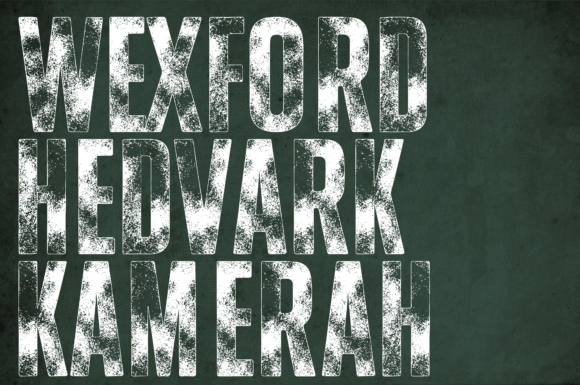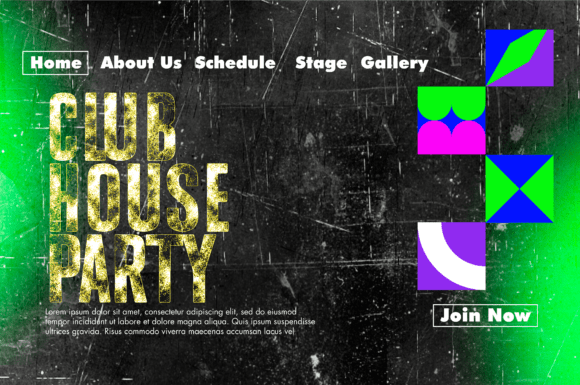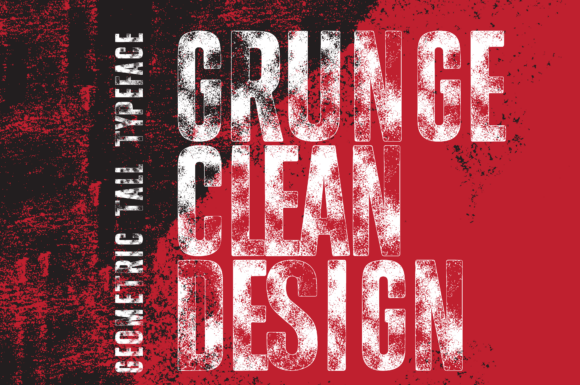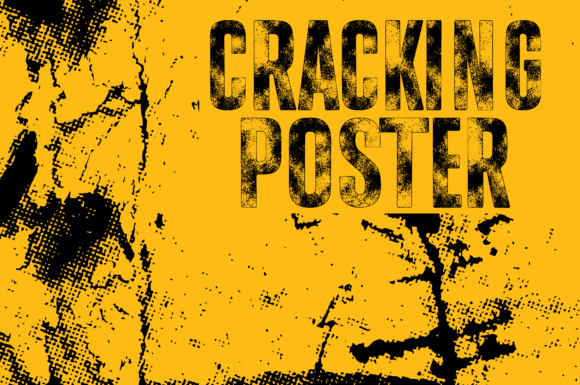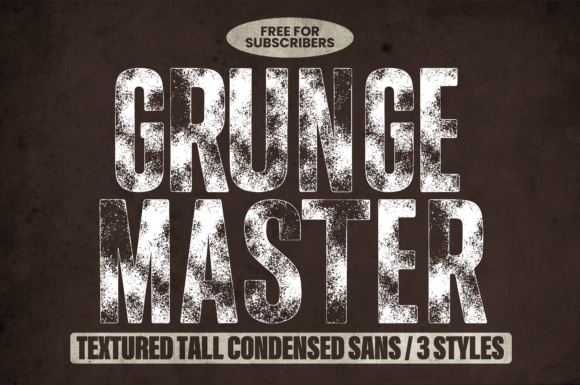
Unveiling Grunge Master: The Ultimate Font for Edgy Designs
Are you tired of using the same old fonts in your designs? Do you want to add a touch of rebellion and boldness to your projects? Look no further than Grunge Master, a striking, worn-out Sans Serif font that embodies the pure essence of grunge. In this article, we’ll dive into the world of Grunge Master, exploring its unique features, styles, and uses, and why it’s the perfect choice for designers and crafters looking to make a statement.
The Essence of Grunge Master
Grunge Master is an audacious, edgy sans serif font that boasts tall, slim proportions and a ragged, textured facelift. Its bizarre beauty is reminiscent of street art, legacy rock posters, and industrial design. With its distressed elements and weather-beaten aesthetic, Grunge Master infuses your designs with an intriguing grunge-splashed character that’s sure to turn heads.
Three Unique Styles to Choose From
Grunge Master is available in three unique styles: Regular, Italic, and Retalic. Each style offers a distinct look and feel, allowing you to experiment with different designs and moods. Whether you’re creating a bold statement or a more subtle hint of grunge, Grunge Master has got you covered.
Perfect for Stand-Out Designs
Grunge Master is perfect for creating stand-out album covers, daring branding, T-shirts, signage, and more. Its bold, edgy aesthetic makes it an ideal choice for designers and crafters looking to create eye-catching designs that demand attention. Whether you’re working with an edgy band or a defiant streetwear brand, Grunge Master is the go-to choice for imparting a bold statement wrapped in authentic, weather-beaten aesthetic.
Key Features of Grunge Master
- Tall, slim proportions: Grunge Master boasts tall, slim proportions that give it a unique and striking appearance.
- Ragged, textured facelift: The font’s ragged, textured facelift adds a layer of distressed elements, infusing your designs with a grunge-splashed character.
- Distressed elements: Each letter of Grunge Master is intricately designed with distressed elements, adding a touch of rebellion and boldness to your designs.
- Available in three unique styles: Grunge Master is available in Regular, Italic, and Retalic styles, allowing you to experiment with different designs and moods.
Why Choose Grunge Master?
So why choose Grunge Master over other fonts? Here are just a few reasons:
- Unique aesthetic: Grunge Master offers a unique aesthetic that’s unlike any other font on the market.
- Versatility: The font is versatile and can be used for a wide range of designs, from album covers to T-shirts and signage.
- High-quality design: The font is designed with high-quality, intricate details that ensure it looks great in any design.
Tips for Using Grunge Master
Here are a few tips for using Grunge Master in your designs:
- Experiment with different styles: Try out different styles, such as Regular, Italic, and Retalic, to see which one works best for your design.
- Use it sparingly: Grunge Master is a bold font, so use it sparingly to avoid overwhelming your design.
- Pair it with other fonts: Try pairing Grunge Master with other fonts to create a unique and eye-catching design.